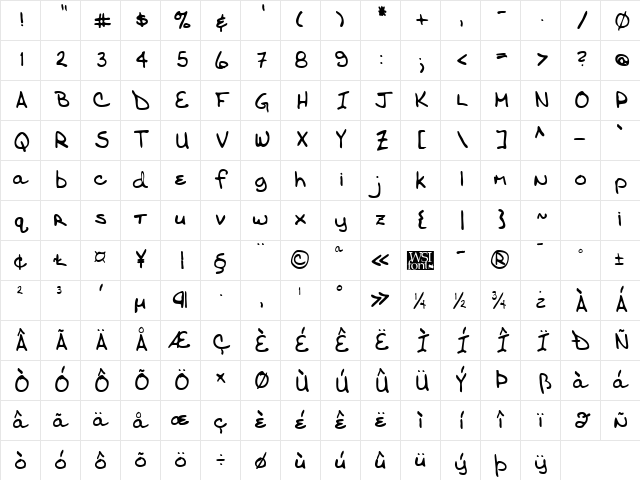
RonniesHand Regular
Design Context for RonniesHand
RonniesHand flows with the natural rhythm of handwritten lettering, making it ideal for designs that call for warmth and personal expression.
Font Pairing: Combine RonniesHand with a simple geometric sans for maximum contrast - the tension between flowing curves and clean structure is a classic typographic pairing.
Pro Tip: Use RonniesHand for short runs of text - names, titles, or taglines. Extended body copy in script faces tires the eye quickly.